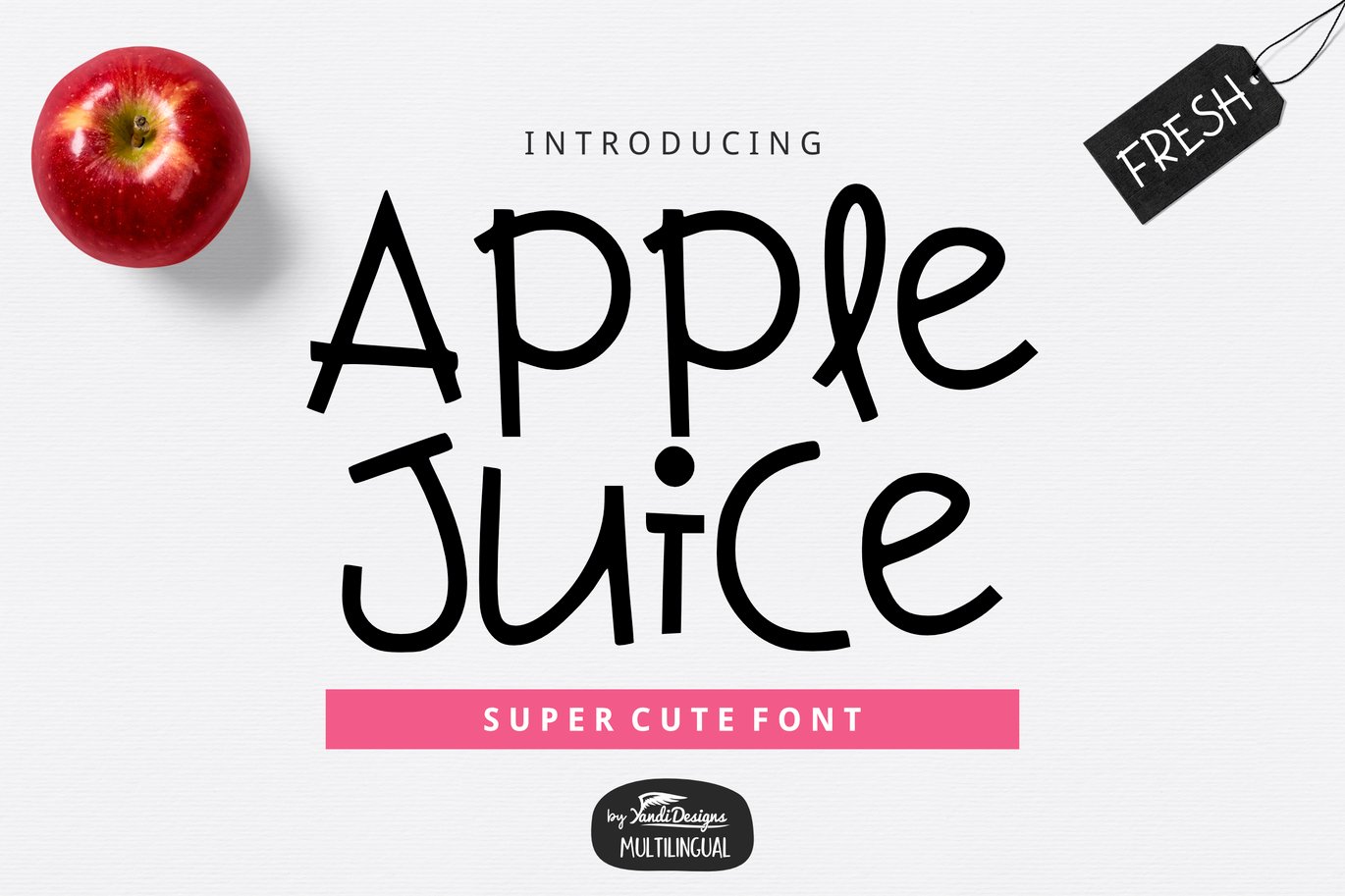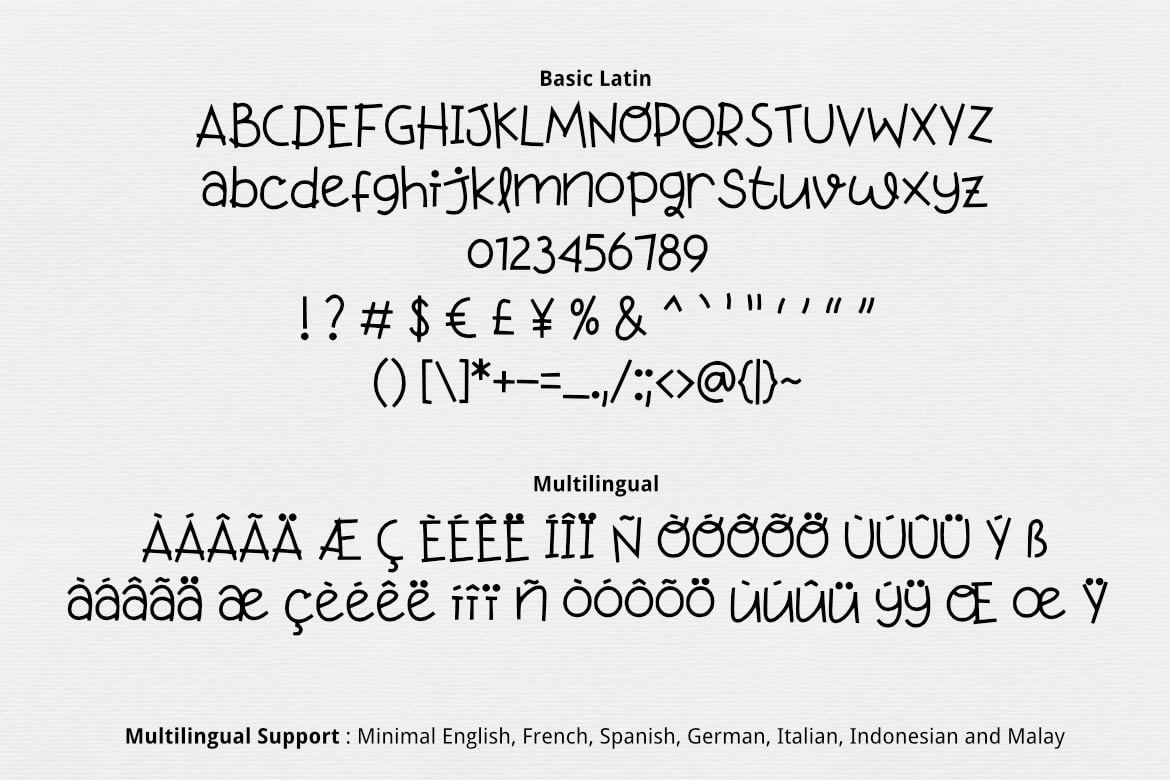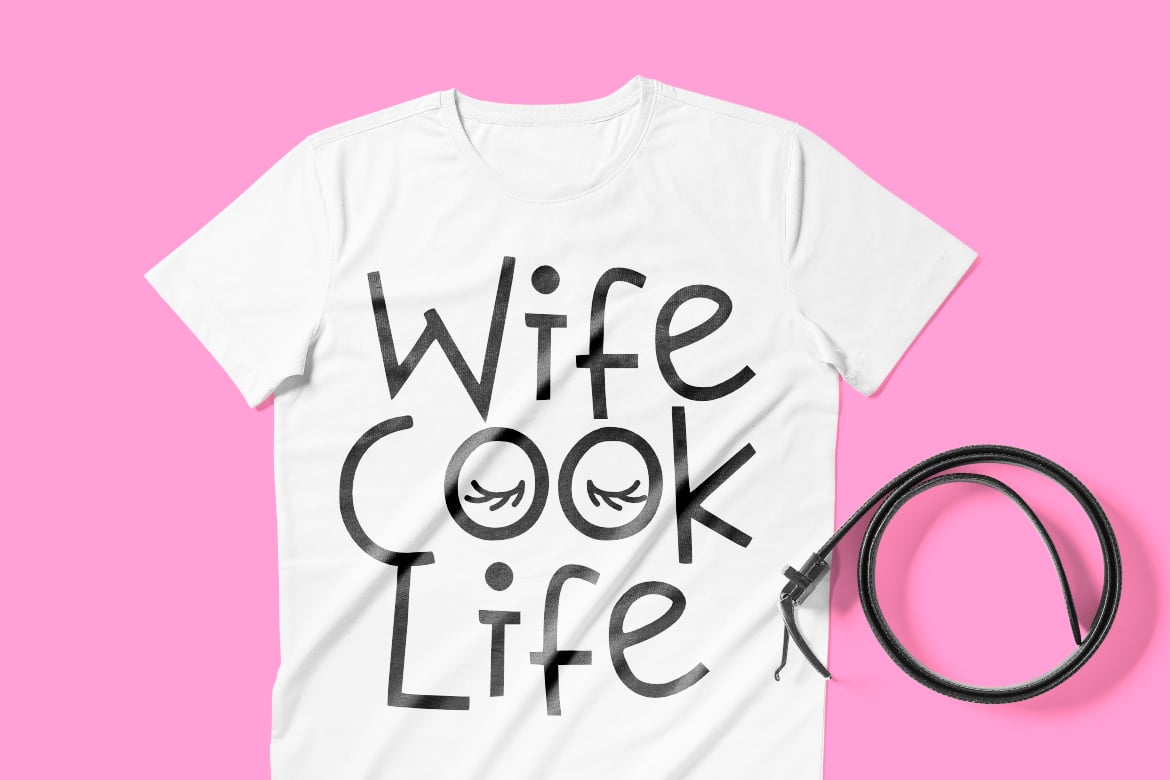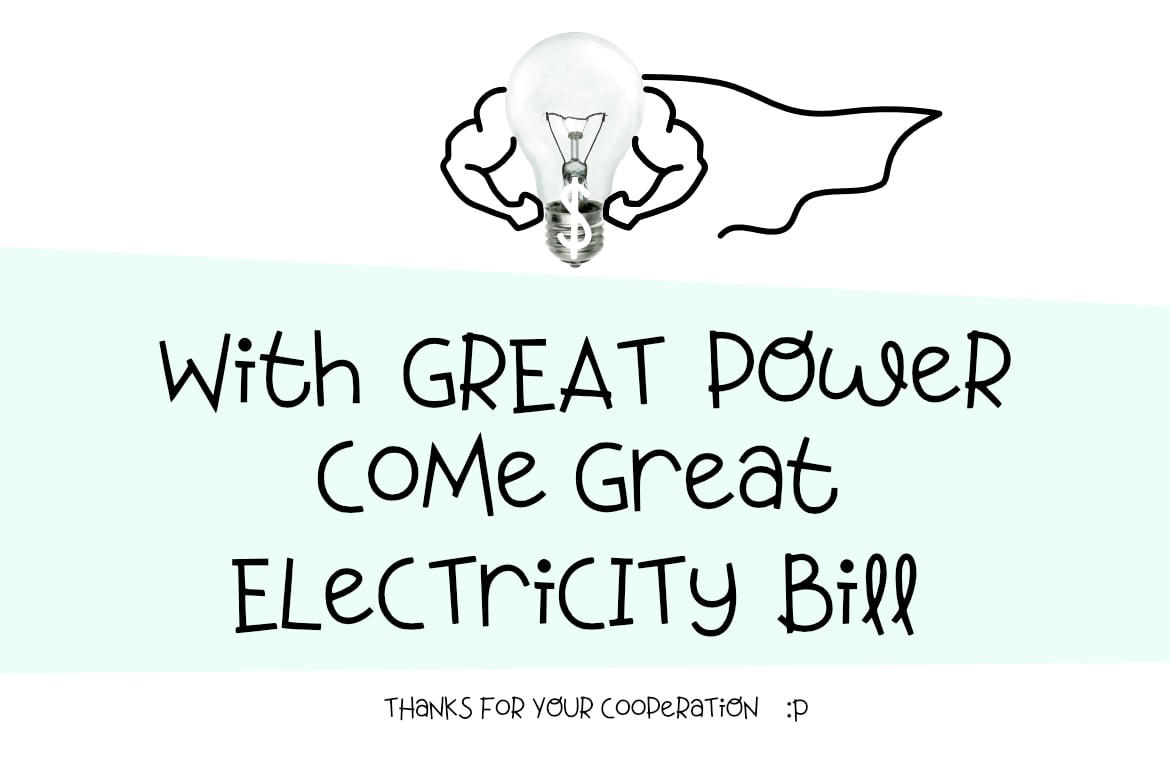
Apple Juice Font
Simple cute font , suitable for many project, signature , quotes, logo , doodle, heading , title etc.
Basic Latin + Multilingual
Support : Minimal English , French, Spanish, Germany, Italian, Indonesian and Malay.